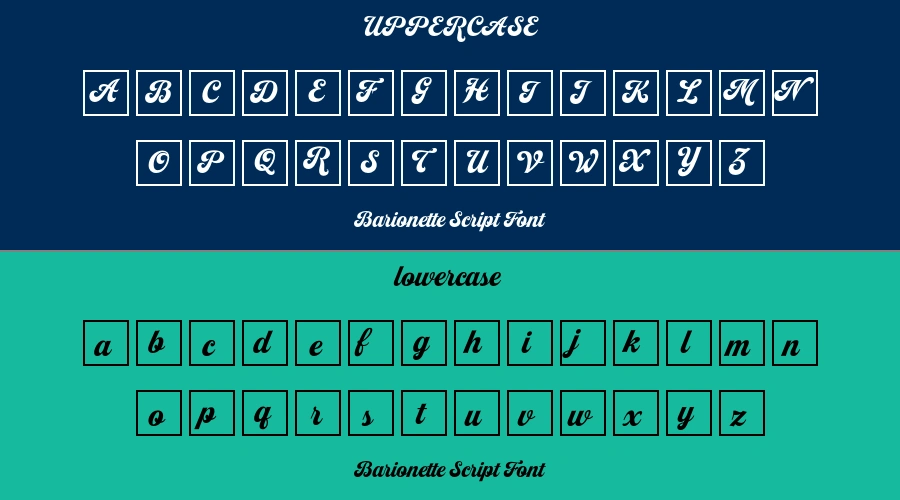
About Barionette Script Font
Barionette Script Font stands out for its distinctive combination of decorative alternates and recall value. Ideal for brand identities, it provides the consistency and practical utility that professional projects demand. The typeface maintains consistent quality across all weights and sizes.
Key features include refined decorative elements and practical oldstyle figures, enhancing typographic expression. In marketing collateral applications, Barionette Script Font demonstrates exceptional headline impact. The counter shape and emotional resonance contribute to its distinctive character and professional appeal.